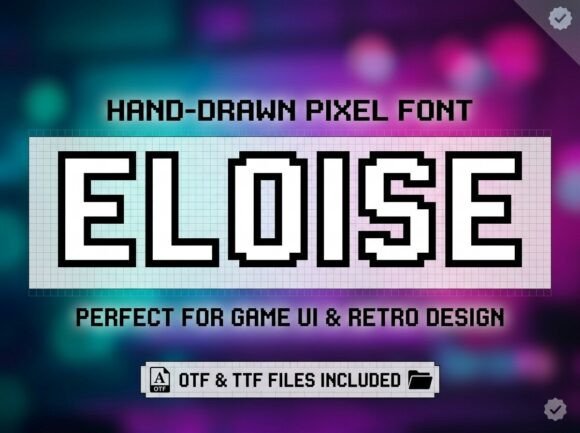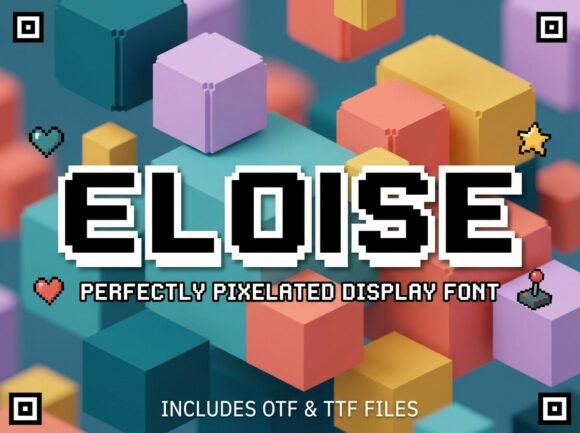
Level Up Your Design Game with Eloise: The Ultimate 8-Bit Display Font
Are you looking to add a touch of nostalgia to your designs? Do you want to evoke the spirit of retro gaming and digital culture? Look no further than Eloise, a sharp 8-bit display font that’s perfect for designers and crafters who want to level up their design game. In this article, we’ll explore the features and benefits of Eloise, and show you how to use it to create stunning designs that pay homage to the golden age of gaming and computing.
The Retro-Gaming-and-Digital Soul of Eloise
Eloise is more than just a font – it’s an experience. With its chunky, block-pixel letterforms, this typeface perfectly captures the nostalgic aesthetic of vintage arcade consoles and early computing interfaces. The font’s heavy weight and pixel-perfect precision make it ideal for creating high-impact designs that demand attention. Whether you’re working on an indie game development project, e-sports tournament branding, tech-focused social media headers, or cyber-culture apparel designs, Eloise is the perfect choice.
Key Features of Eloise
• Chunky, block-pixel letterforms: Eloise’s unique letterforms are designed to evoke the nostalgic feel of old-school gaming and computing.
• Heavy weight: The font’s bold weight ensures that your designs stand out and grab attention.
• Pixel-perfect precision: Eloise is designed to be perfect for digital use, with crisp, clean lines that look amazing on any screen.
• 8-bit display font: Eloise is optimized for use in digital displays, making it perfect for video games, social media headers, and more.
Use Cases for Eloise
Eloise is a versatile font that can be used in a variety of design projects. Here are some ideas to get you started:
• Independent indie game development: Use Eloise to create authentic, retro-style game titles, menus, and UI elements.
• E-sports tournament branding: Make your tournament branding stand out with Eloise’s bold, attention-grabbing letterforms.
• Tech-focused social media headers: Use Eloise to create eye-catching social media headers that showcase your brand’s personality.
• Cyber-culture apparel designs: Create striking apparel designs that celebrate the world of cyber culture and gaming.
Tips for Using Eloise
Here are some tips for getting the most out of Eloise:
• Experiment with different colors: Eloise looks amazing in bright, bold colors. Try experimenting with different color schemes to find the one that works best for your design.
• Use it sparingly: Eloise is a bold font, so use it sparingly to avoid overwhelming your design.
• Combine it with other fonts: Try pairing Eloise with other fonts to create a unique and eye-catching design.
Eloise is a powerful font that’s perfect for designers and crafters who want to add a touch of nostalgia to their designs. With its chunky, block-pixel letterforms and pixel-perfect precision, Eloise is the ultimate choice for creating high-impact designs that pay homage to the golden age of gaming and computing. Whether you’re working on an indie game development project, e-sports tournament branding, tech-focused social media headers, or cyber-culture apparel designs, Eloise is the perfect font for you. So why wait? Level up your design game with Eloise today!
Eloise Font Sample